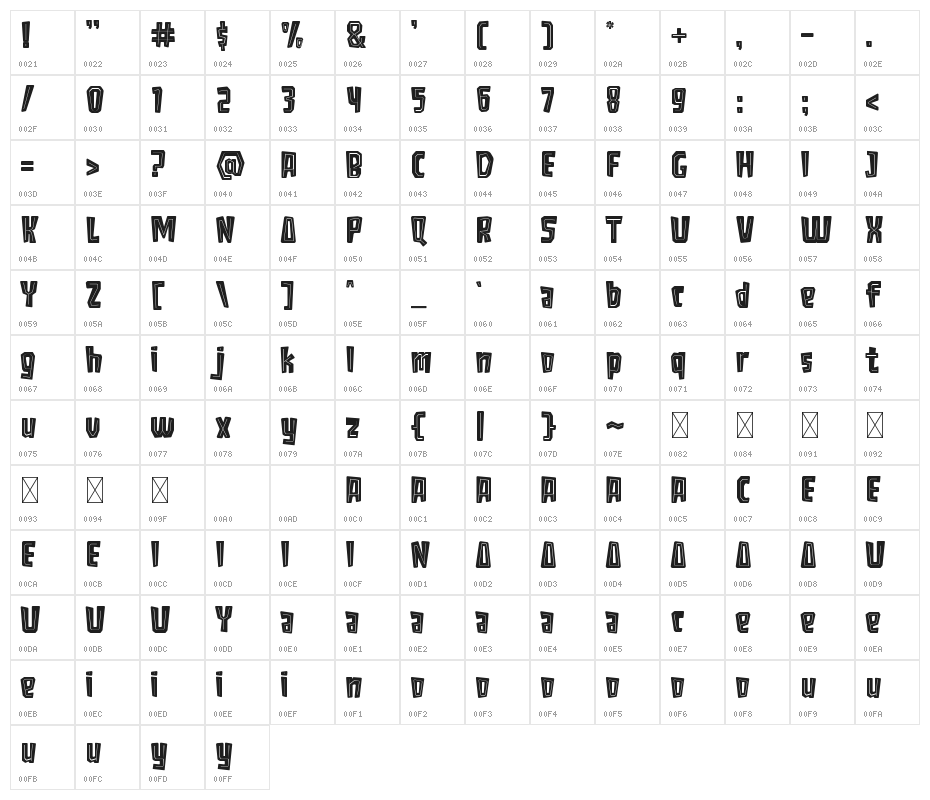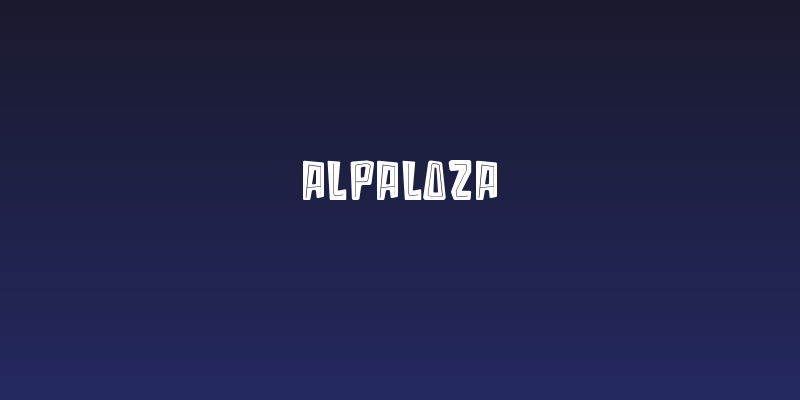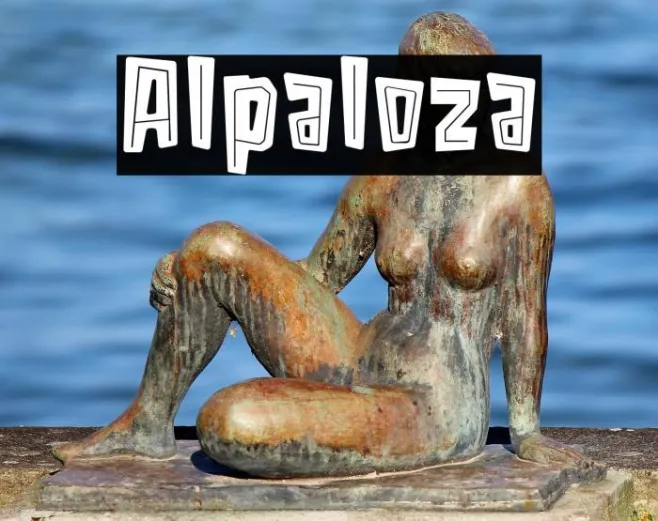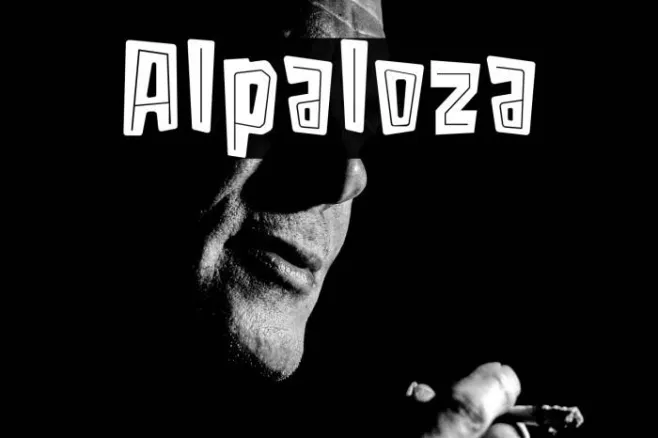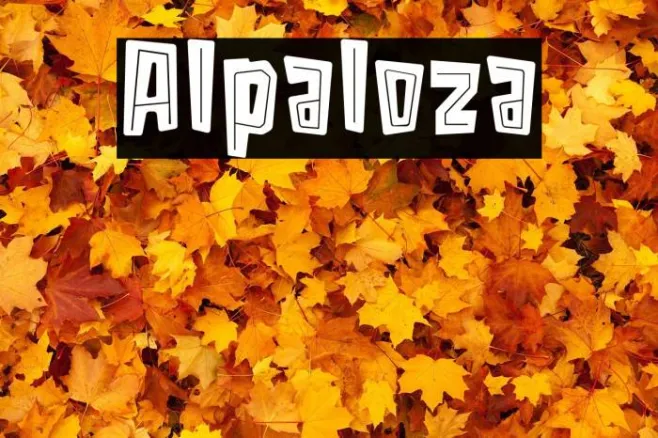
Alpaloza Font
Alpaloza Description
This font features a bold and playful design with a hand-drawn aesthetic. The characters have a slightly irregular, quirky appearance, giving them a lively and energetic feel. The thick outlines and uneven strokes add to its whimsical charm, making it stand out in any design. The uppercase and lowercase letters maintain a consistent style, with exaggerated curves and angles that create a sense of movement. The numbers and special characters are equally dynamic, ensuring a cohesive look across all text elements.
| Use Case | Headlines, Posters, Branding |
| Proposed Projects | Ideal for children's books, comic strips, playful branding, and event posters. |